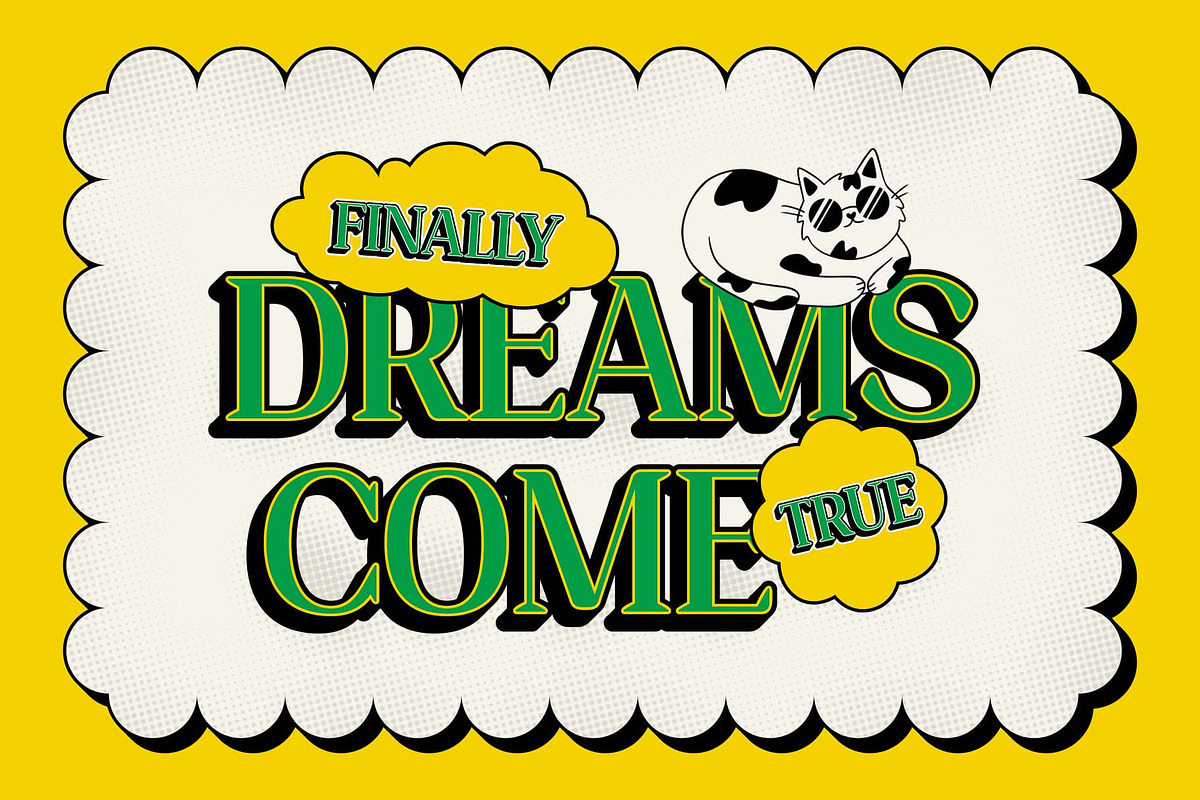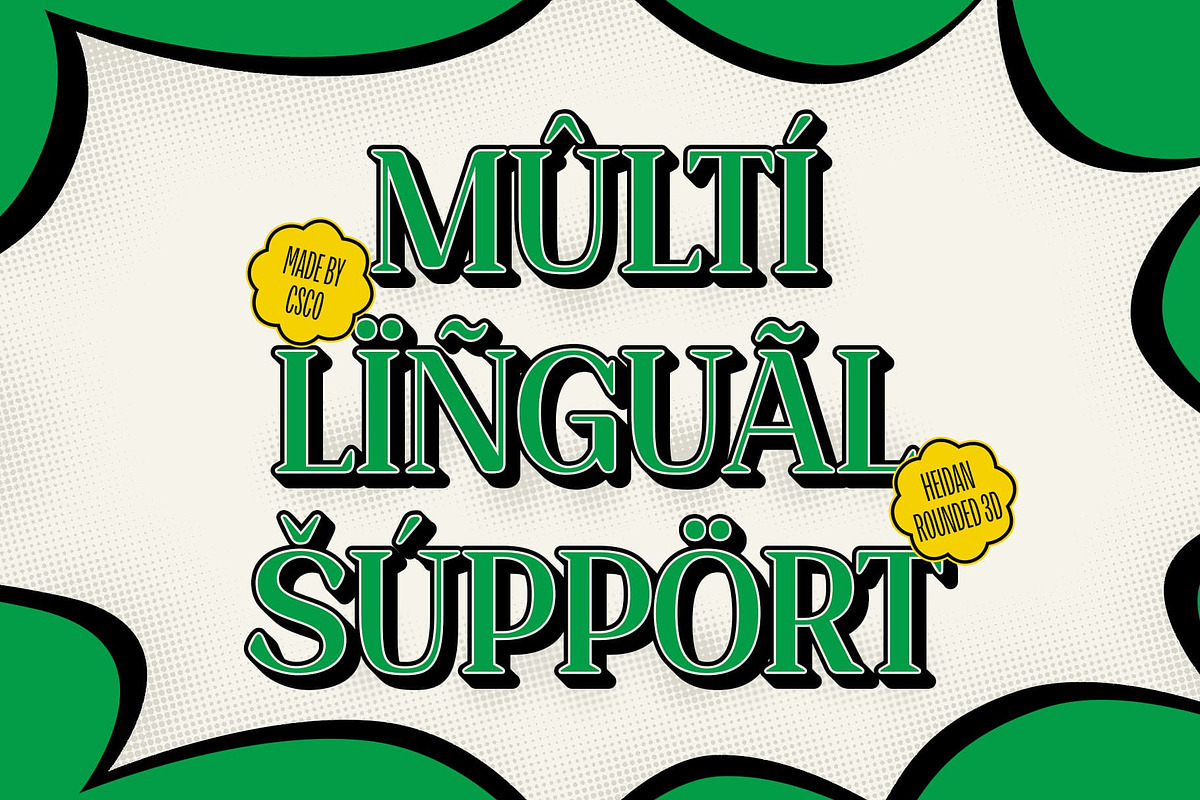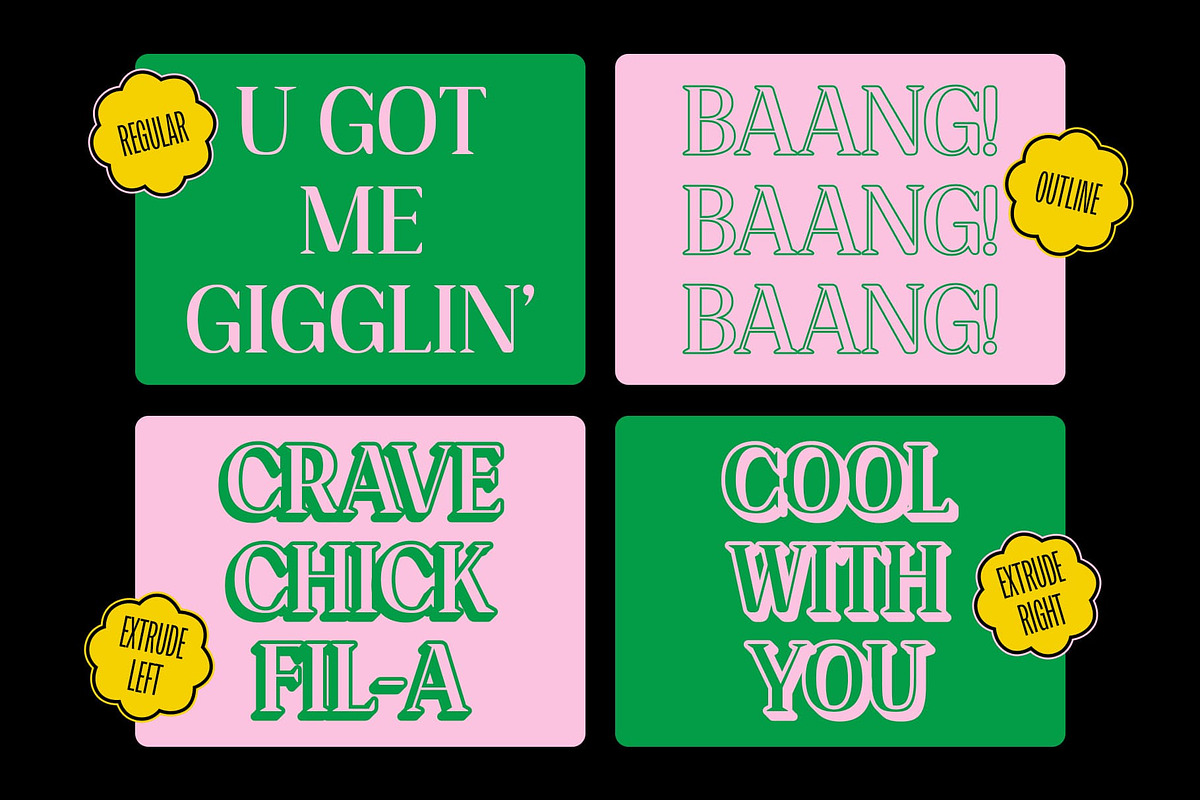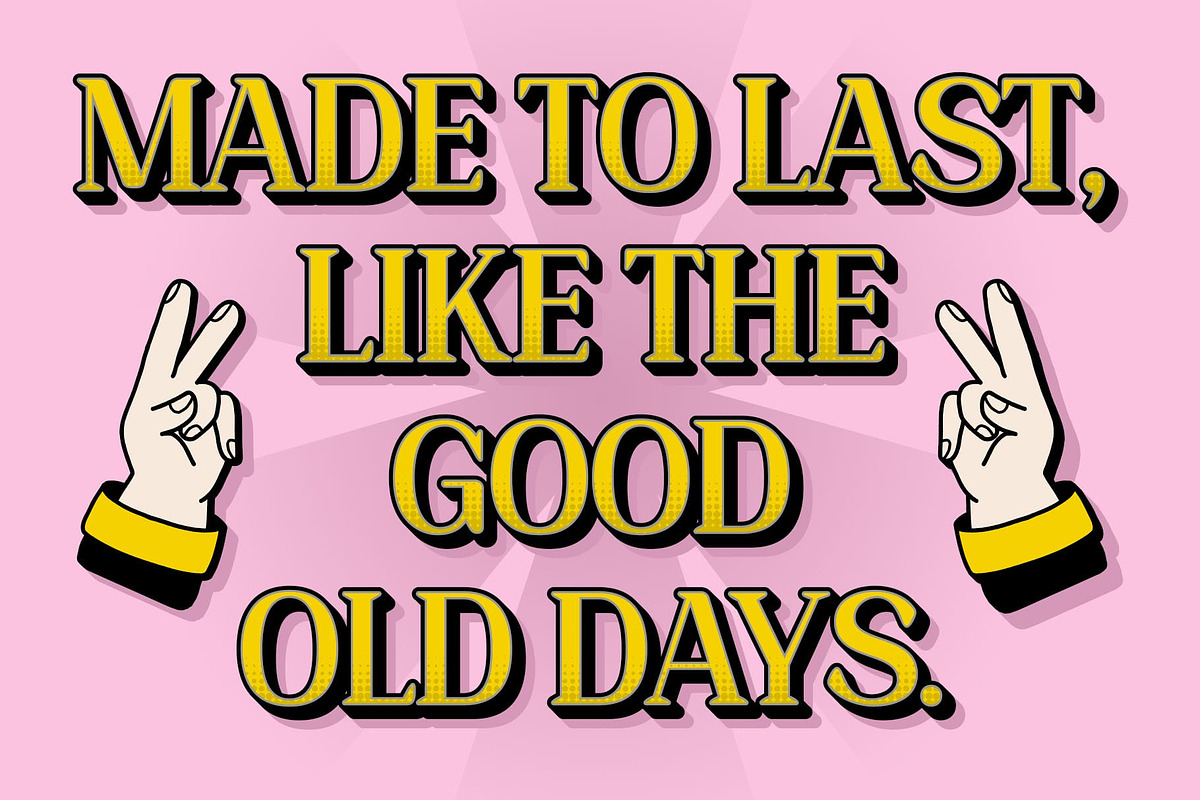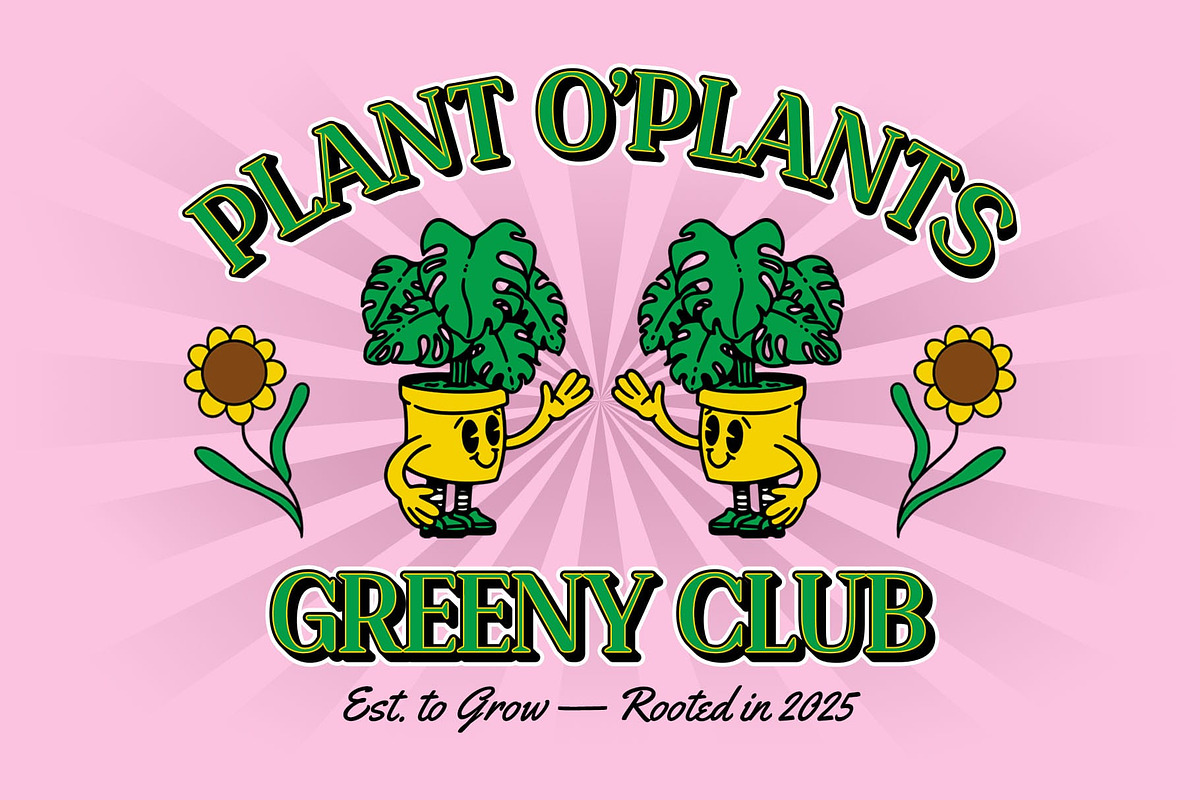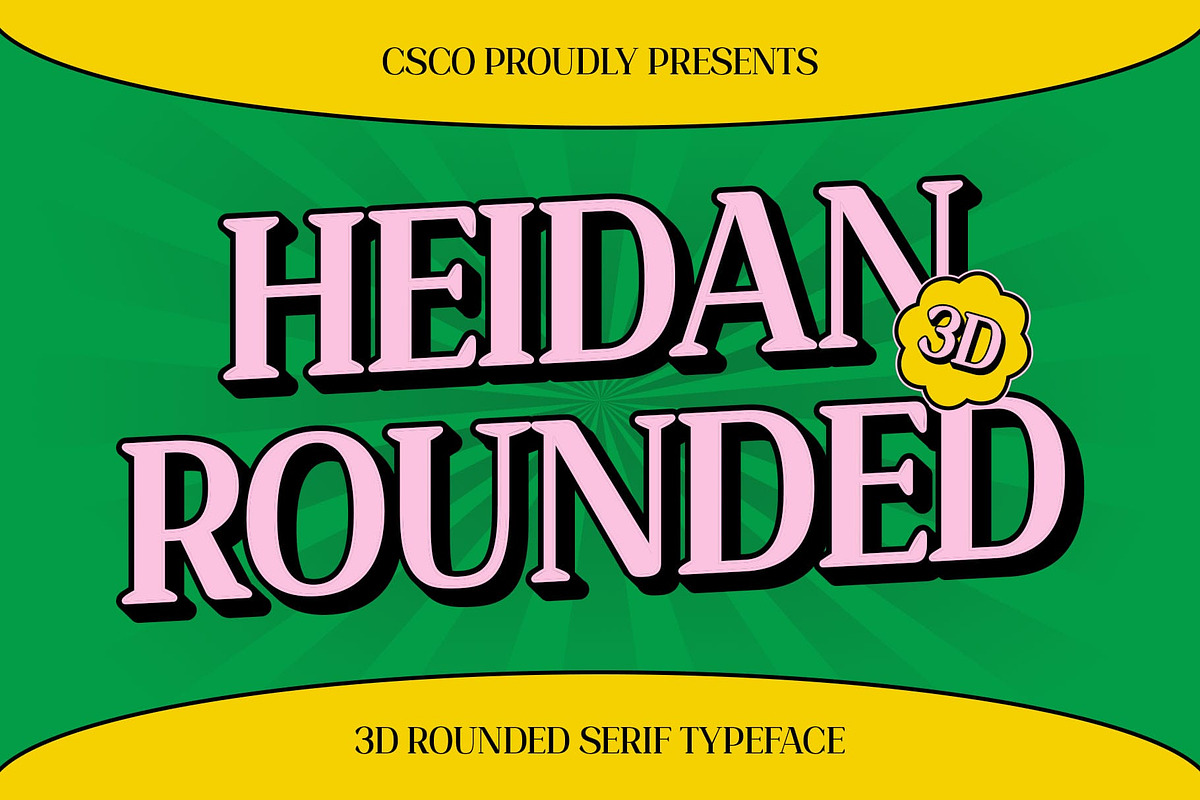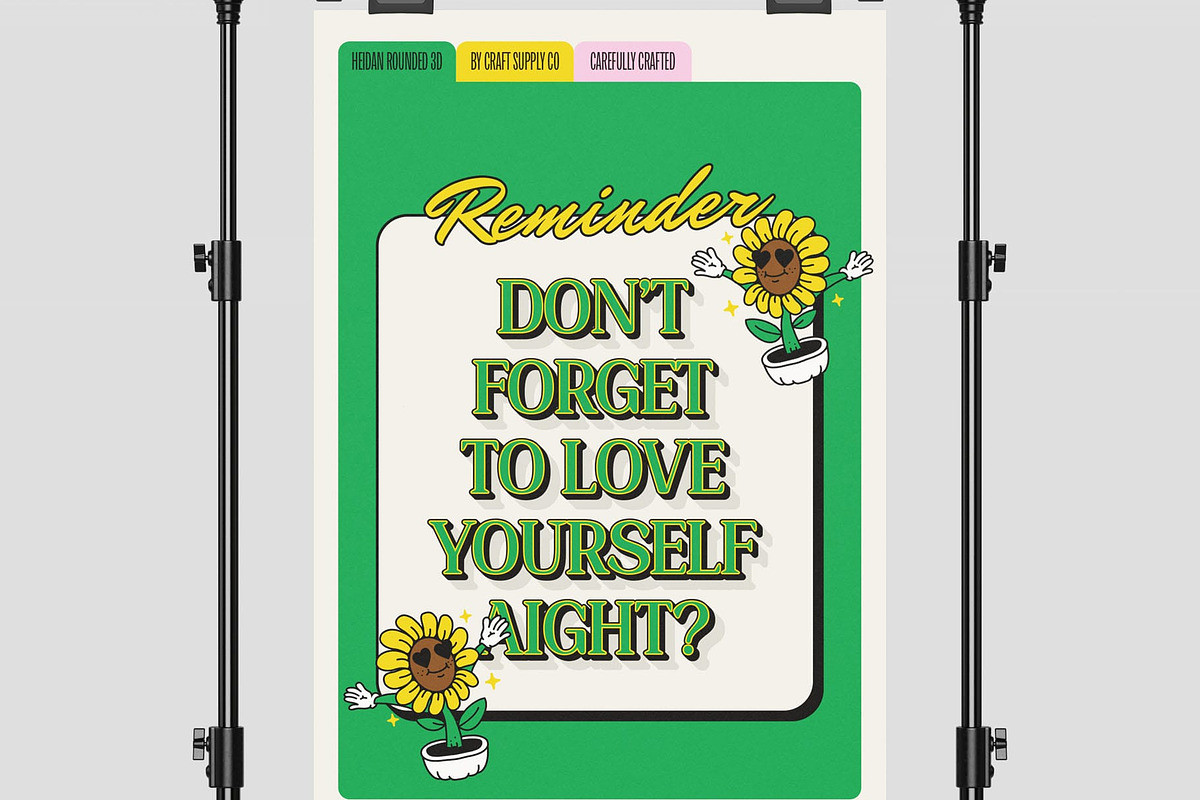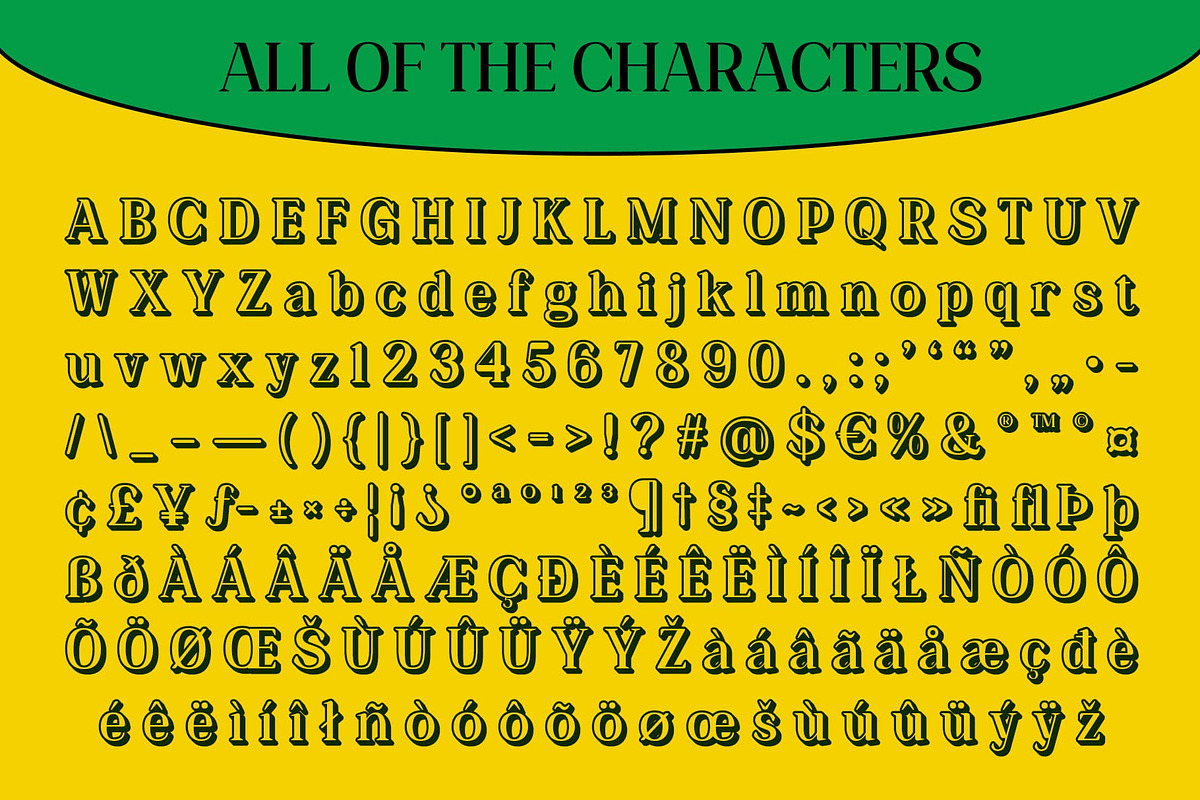
Heidan Rounded 3D
Heidan Rounded 3D Font: Elegance in Dimensional Form
Modern Serif Font with Rounded Details and 3D Effect Heidan Rounded 3D is a modern serif font that blends sharp wedge serifs with smooth, rounded contours to create a sophisticated yet approachable tone. Its bold structure is elevated by a dynamic 3D effect, adding depth and visual intrigue to every character. This fusion of classic and contemporary makes it a perfect choice for standout typography in refined, forward-looking designs.
Soft Yet Strong Silhouettes The rounded shapes give Heidan a gentle, modern edge, softening the traditionally formal serif style. Combined with its clean lines and strong proportions, this creates a font that’s as polished as it is friendly—ideal for brands and layouts that want to balance elegance with accessibility.
Striking 3D Effect for Extra Dimension The integrated 3D treatment enhances the font’s presence, giving it a tangible, eye-catching depth. This effect introduces a sense of motion and structure, making Heidan Rounded 3D especially effective in bold editorial spreads, digital interfaces, and premium display headlines.
Perfect for Premium and Futuristic Visuals Whether you’re designing a luxury brand identity, a sleek editorial project, or futuristic visual concepts, Heidan Rounded 3D offers the perfect typographic voice. It delivers clarity, creativity, and character—all wrapped in a versatile and modern serif package.
- Heidan Rounded Regular
- Heidan Rounded Outline
- Heidan Rounded Extrude Right
- Heidan Rounded Extrude Left